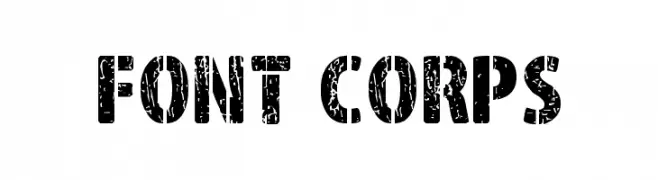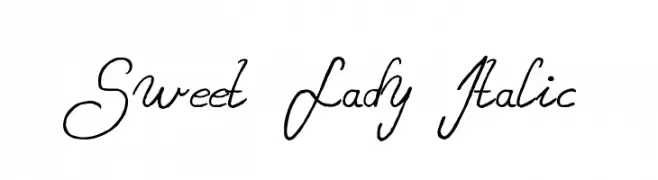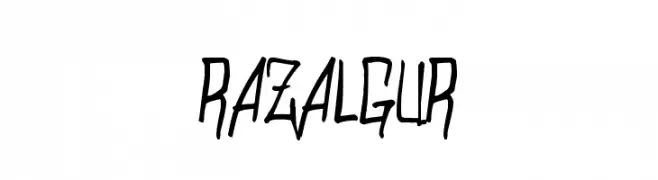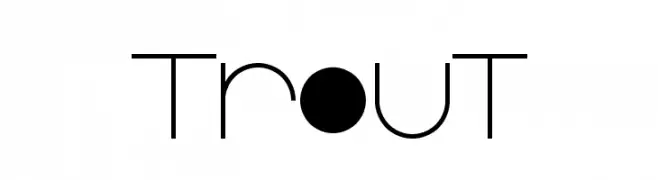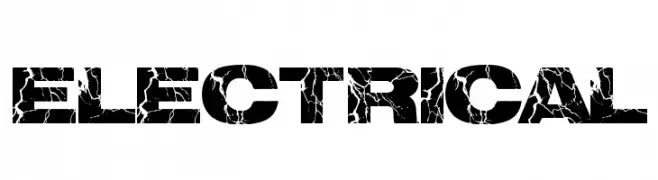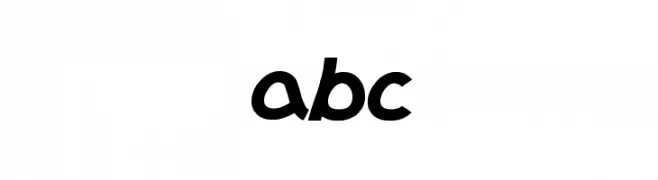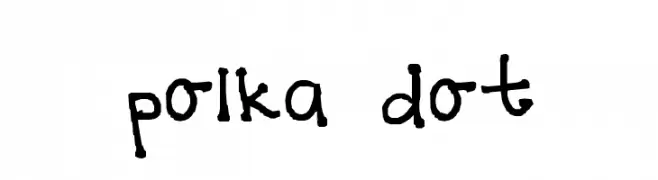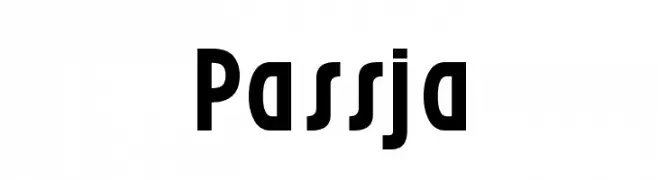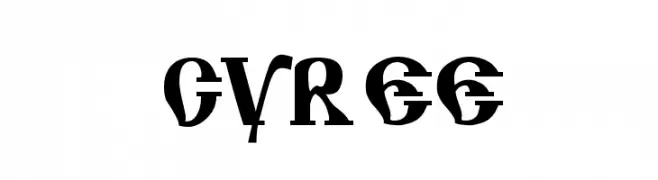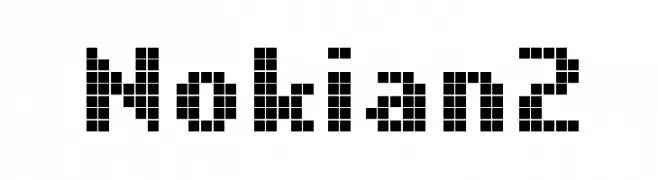
A bold, stencil-style font with a rugged, distressed look.
A bold, distressed font with a textured, grunge appearance.
A bold, distressed font with a grunge texture and strong presence.
A bold, decorative font with a 3D shadow effect and striped pattern.
A bold, decorative font with floral motifs in uppercase letters.
An elegant, flowing cursive font with interconnected letters.
A classic serif font with a unique halftone texture for a vintage look.
A hand-drawn, artistic font with elongated, irregular letterforms.
A bold, geometric font with unique cut-out sections for a modern, impactful look.
A modern, geometric font with clean lines and consistent stroke width.
A bold, cracked texture font with a rugged, edgy appearance.
A bold, playful font with dynamic, rounded characters and a whimsical style.
A bold, handwritten font with a playful and energetic style.
A bold, jagged font with a dynamic, textured appearance.
A bold, stencil-like font with geometric shapes and cut-out sections.
A decorative dot matrix font with a retro digital display style.
A bold, geometric font with a modern and assertive style.
A casual, handwritten font with fluid and organic strokes.
A playful, handwritten font with smooth, rounded strokes and a casual style.
A pixelated, retro-style font with a blocky, digital appearance.
A bold, angular serif font with a modern twist, perfect for impactful designs.
A pixelated, retro-style font with a blocky, geometric design.